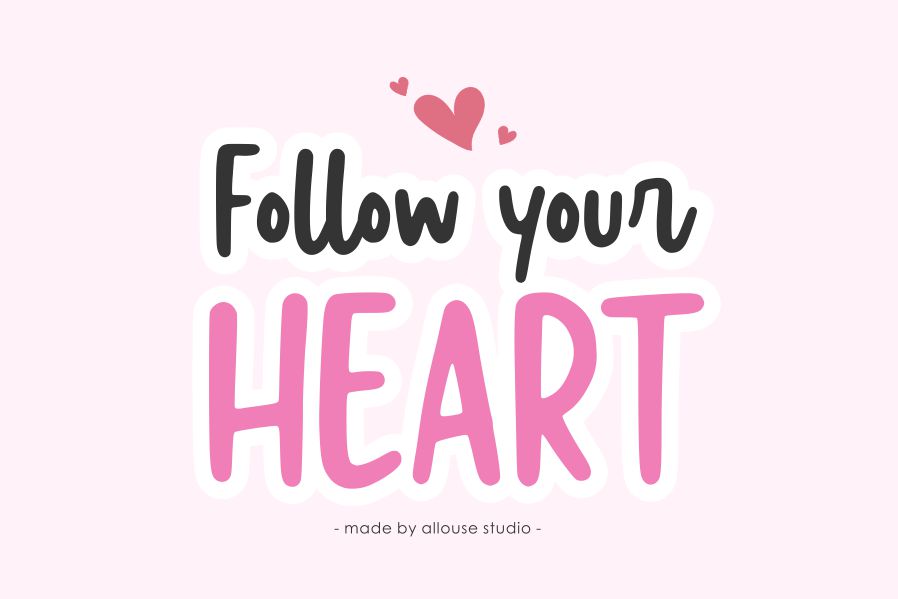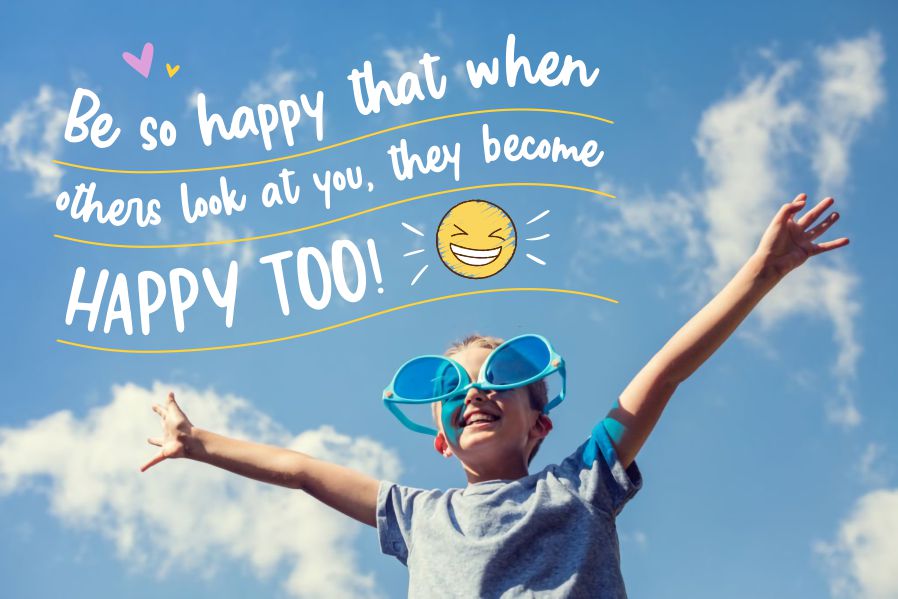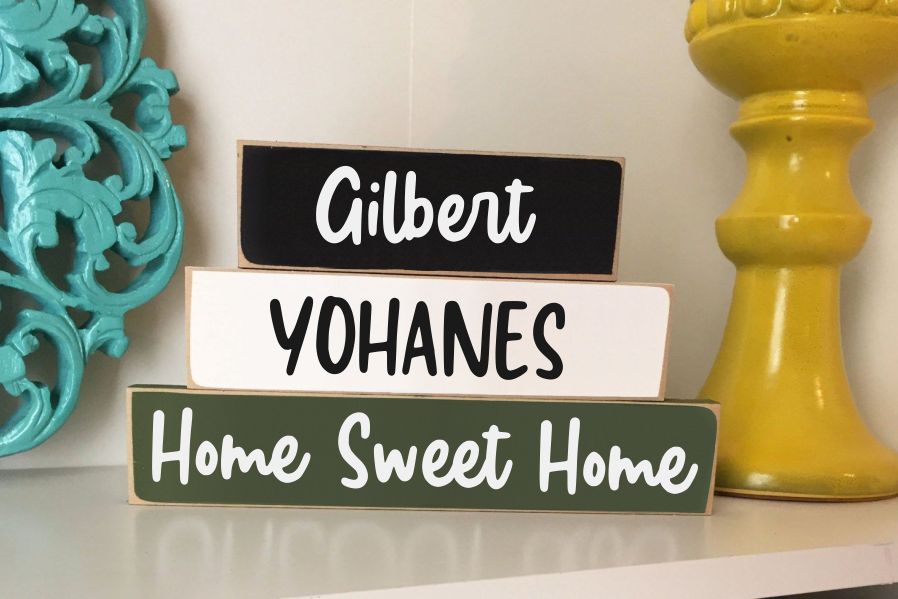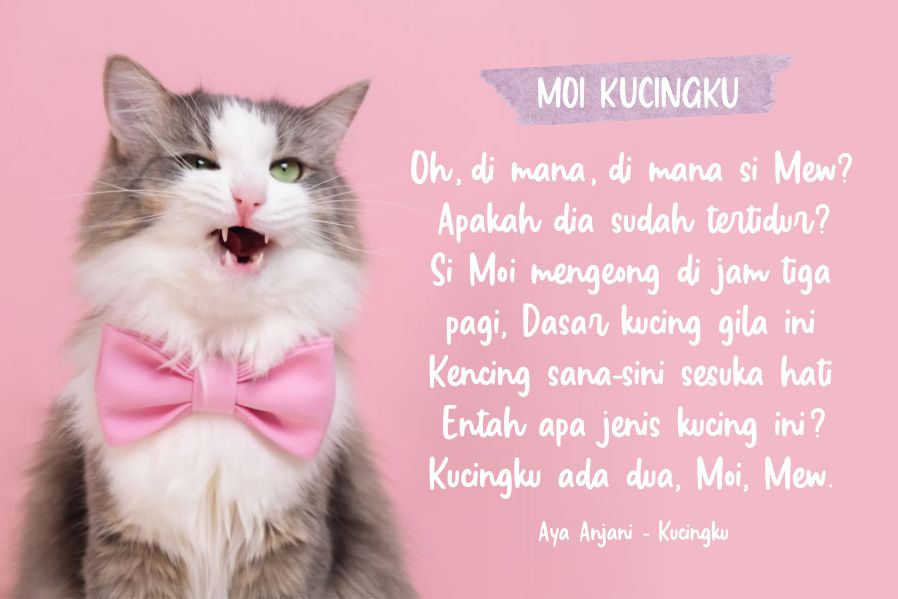
Special Birthday Font
Special Birthday Script Font is a Fun Handwritten Font. Special Birthday is perfect for product packaging, branding project, magazines, social media, weddings, or just used to express words above the background.